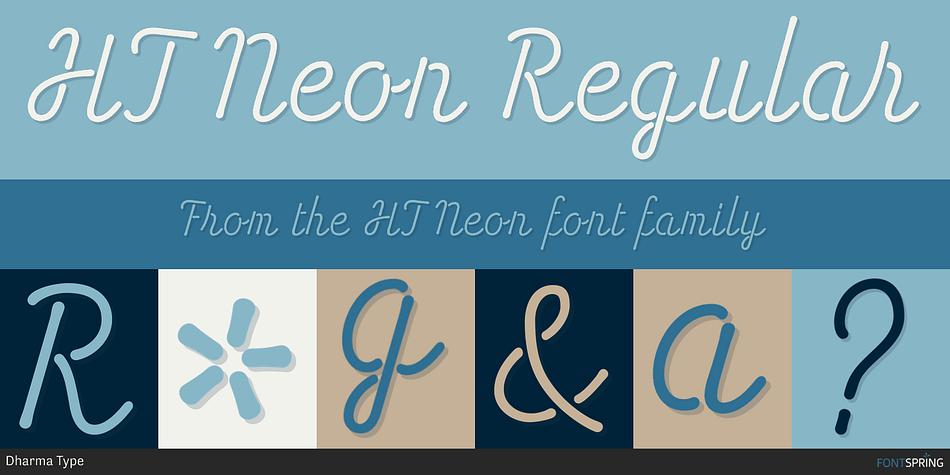
HT Neon Regular
HT Neon is a script font published by Dharma Type.
Retro script fonts inspired by shopfront lettering and hand-painted wall advertisements from 1950s Italy.
They capture the nostalgic charm of mid-century Italian streets, blending elegance with a handcrafted feel.
HT Neon shines as if to invite us.This rounded and monoline font is very striking. But it is readable because the characters are arranged naturally when they are typed. HT Neon is great to use on your design projects such as Shop Sign,Packaging, Logotype and more.When you type the character “µ”, it becomes a electrical cord!